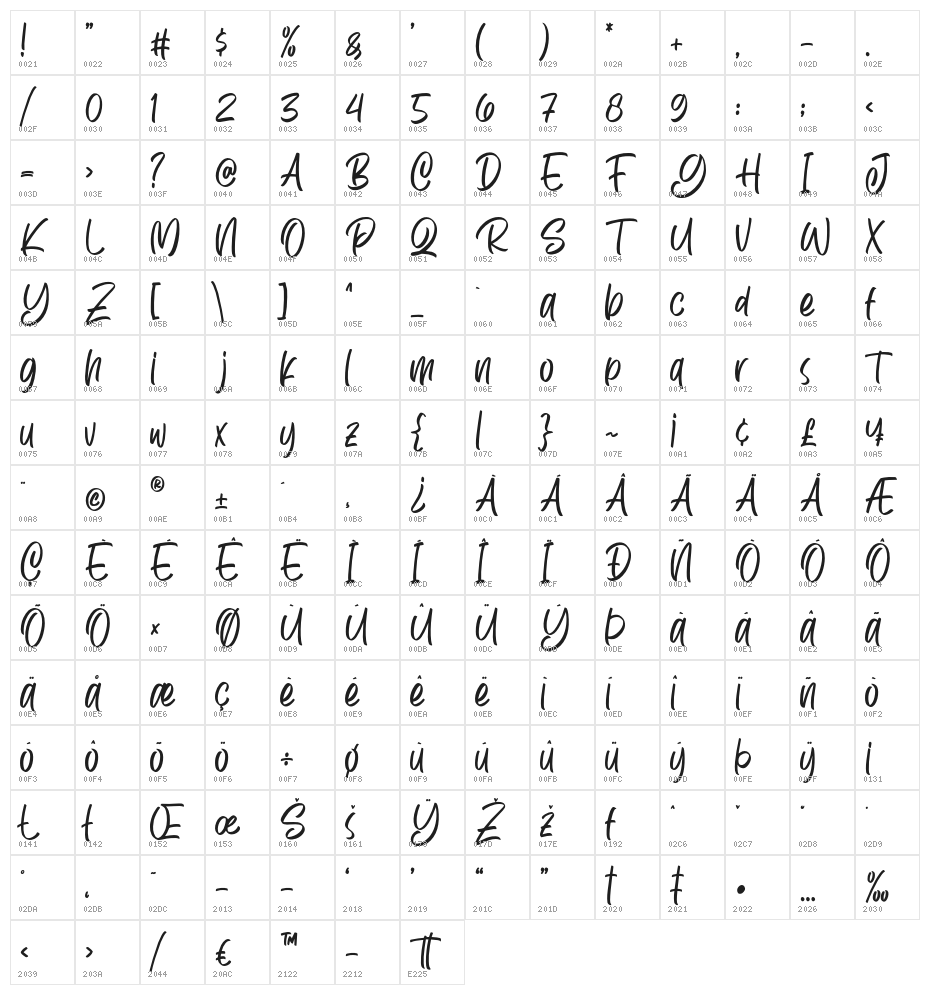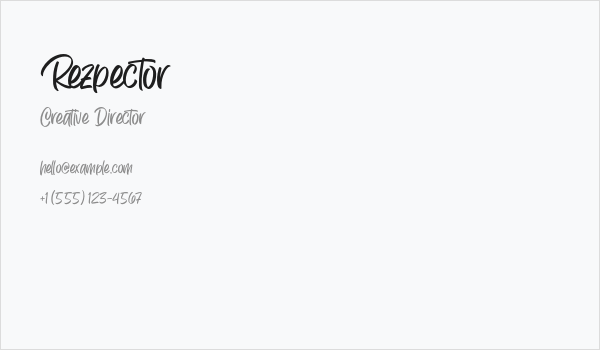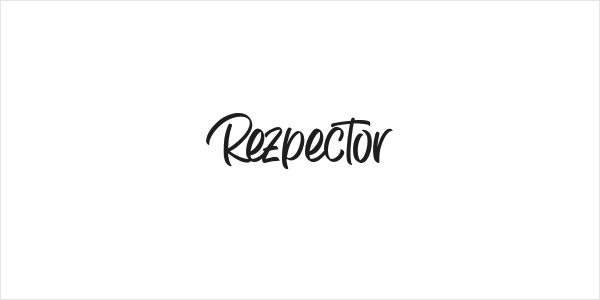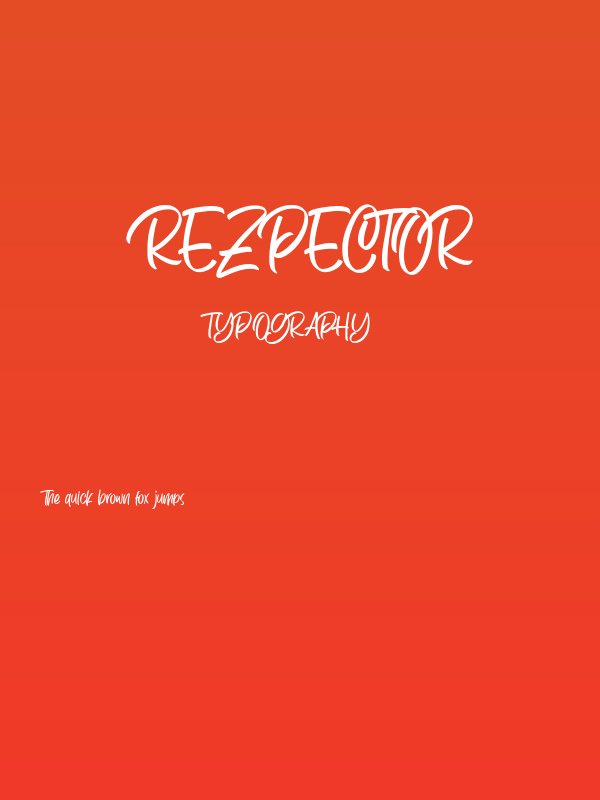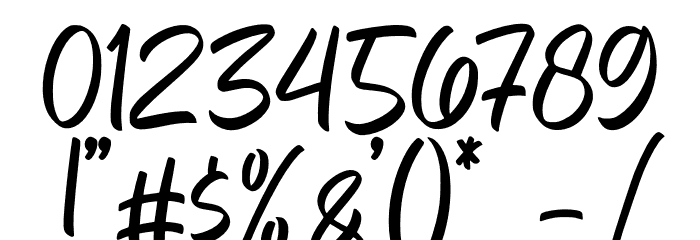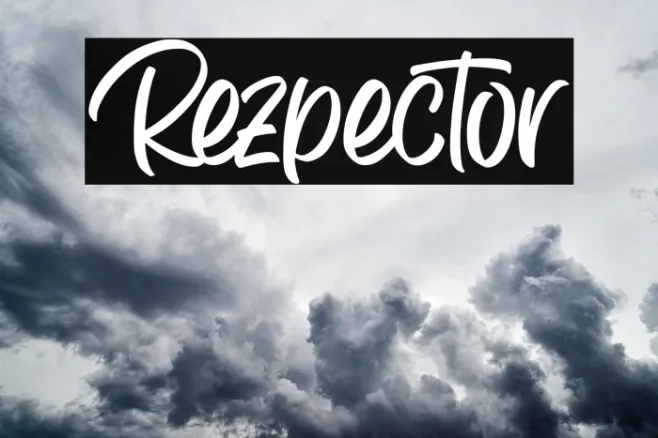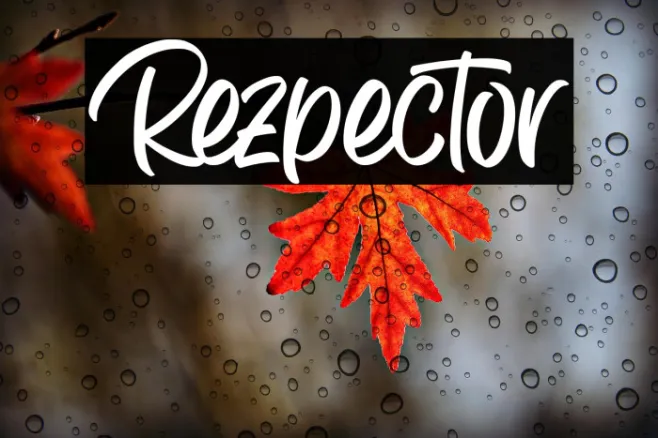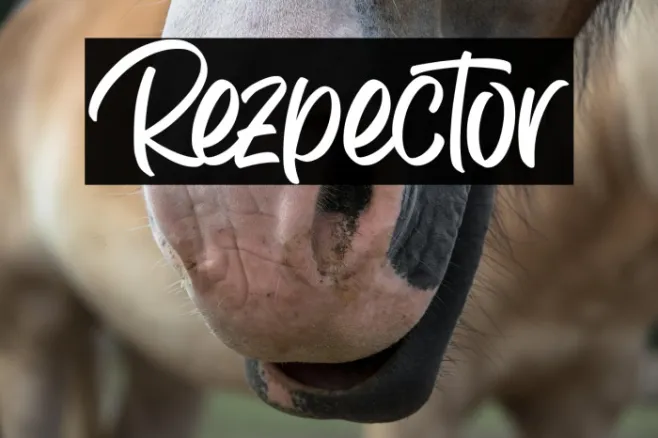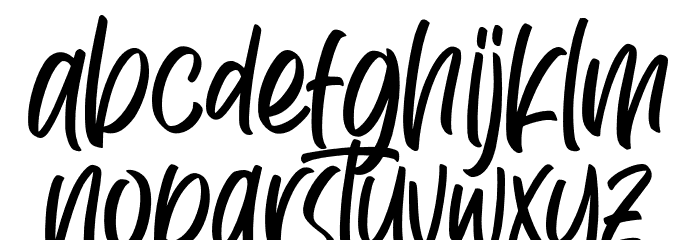
Rezpector Font
Rezpector Description
This font exudes a dynamic and energetic style with its bold, flowing script. The characters are crafted with a sense of movement, featuring smooth curves and a slightly slanted orientation that adds to its lively appearance. The uppercase letters are tall and commanding, while the lowercase letters maintain a consistent flow, enhancing readability. The numerals and special characters are designed to match the overall aesthetic, ensuring a cohesive look. This font is ideal for projects that require a personal touch, such as invitations, branding, or any creative endeavor that benefits from a handwritten feel.
| Proposed Projects | Ideal for invitations, branding, and creative projects needing a personal touch. |